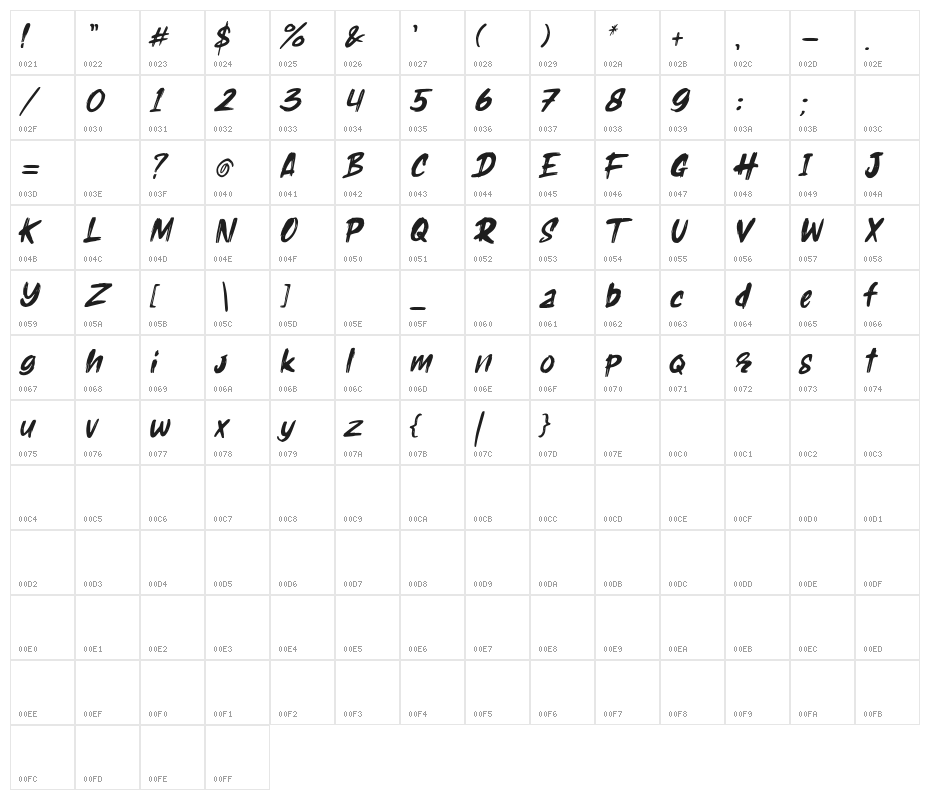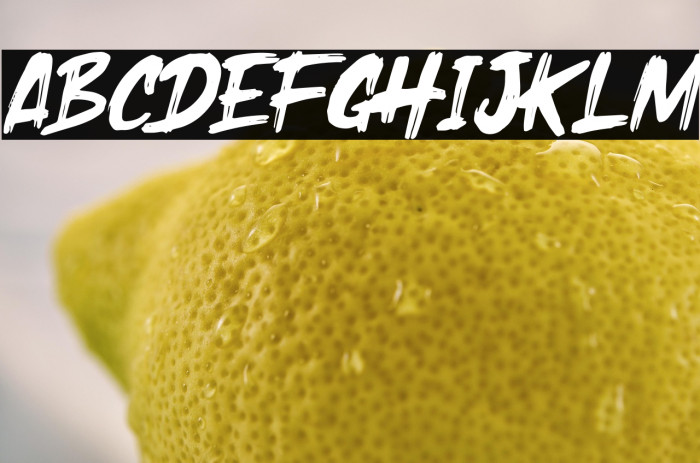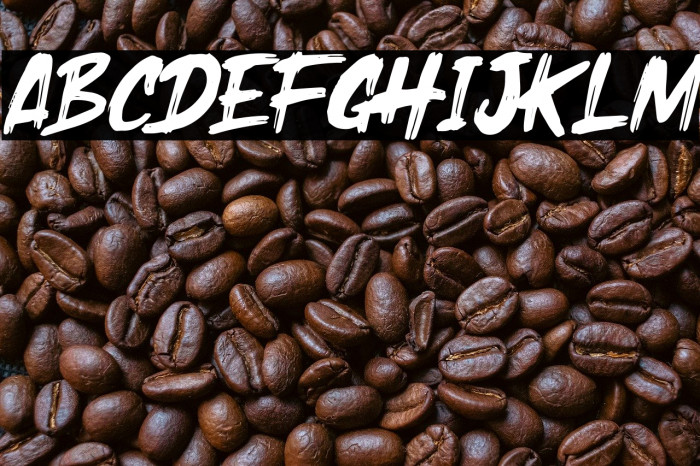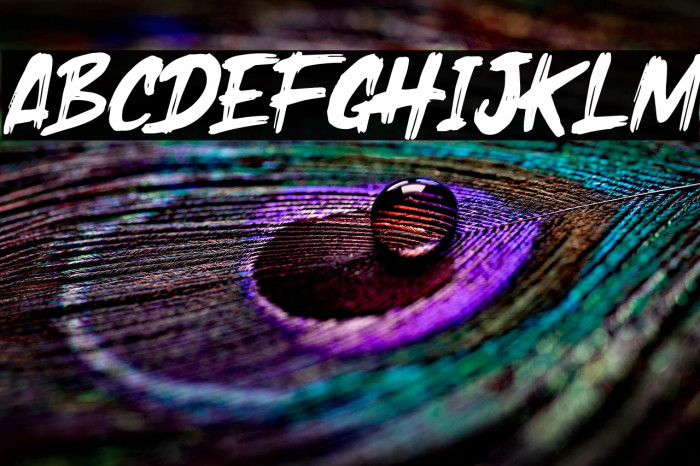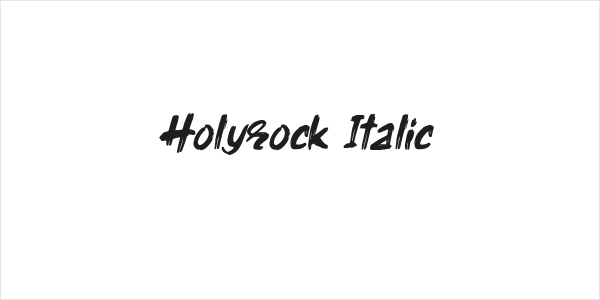
Holyrock Italic Font
Holyrock Italic Description
This font features a bold and dynamic brush script style, characterized by its energetic strokes and fluid motion. The letters exhibit a hand-painted appearance, with varying thickness that adds a sense of movement and spontaneity. The uppercase and lowercase letters maintain a consistent style, with the uppercase being slightly more pronounced. Numbers and special characters follow the same expressive design, making them stand out. The overall impression is one of creativity and boldness, suitable for projects that require a strong visual impact.
| Proposed Projects | Ideal for branding, posters, album covers, and any project needing a bold, artistic touch. |